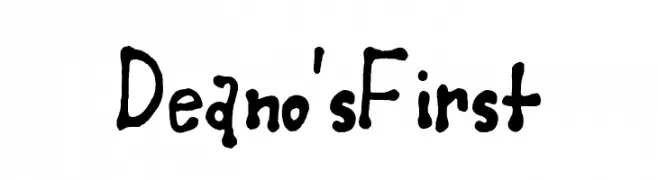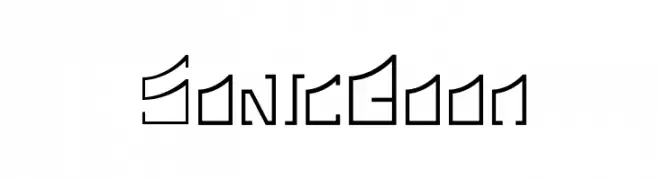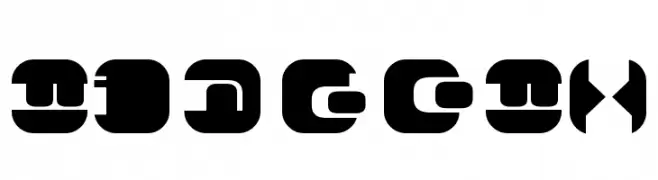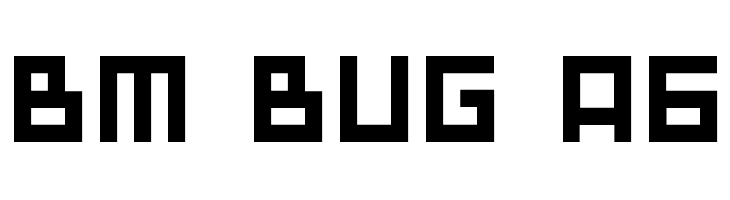
( DefayDesigns - www.defaydesigns.com )
A modern, geometric font with thin lines and abstract shapes, perfect for creative projects.
( Deano Fonts )
A playful, hand-drawn font with a whimsical and informal style.
( Davide Lasagni - www.davidelasagni.it )
A bold, geometric font with sharp angles and a futuristic style.
( David Myriad Rosenbaum - davidmyriad.tripod.com/myriads.font.page.html )
Ancient cuneiform-inspired font with geometric, wedge-shaped glyphs.
( David Myriad Rosenbaum - davidmyriad.tripod.com/myriads.font.page.html )
A thin, angular font inspired by ancient Phoenician and Moabite scripts.
( David Myriad Rosenbaum - davidmyriad.tripod.com/myriads.font.page.html )
A bold, decorative font inspired by ancient scripts with angular, geometric shapes.
( David Myriad Rosenbaum - davidmyriad.tripod.com/myriads.font.page.html )
A bold, angular typeface inspired by ancient scripts with a decorative and historical flair.
( David Luscombe - www.davidluscombe.com/ )
A bold, futuristic font with geometric shapes and high contrast.
( David Luscombe - www.davidluscombe.com/ )
A modern, decorative font with playful curls and geometric shapes.
( David Luscombe - www.davidluscombe.com/ )